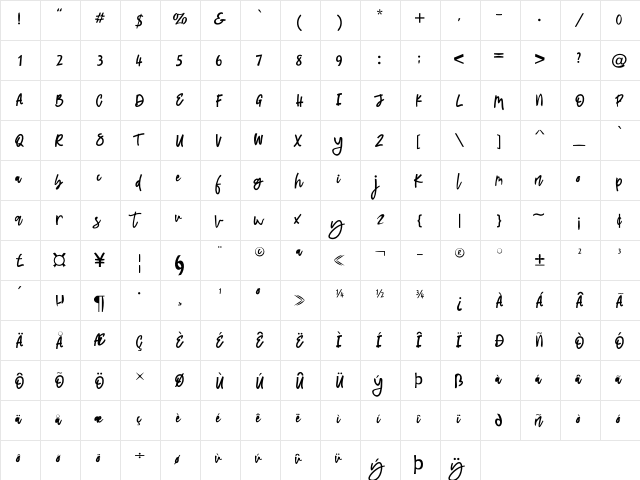
Latifah Regular
| Foundry | Alif Quentin |
| Designer | Muhammad Arif |
Design Context for Latifah Typeface
Latifah is a composed and adaptable typeface that performs quietly and consistently across a wide range of design contexts.